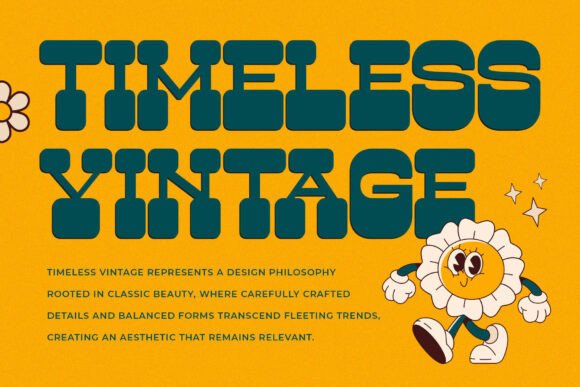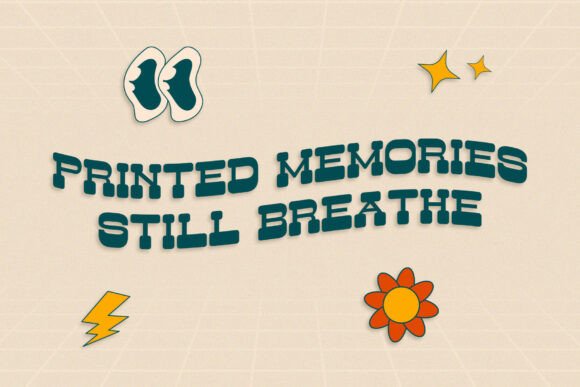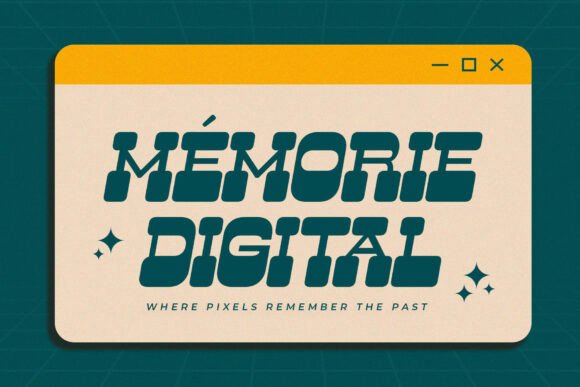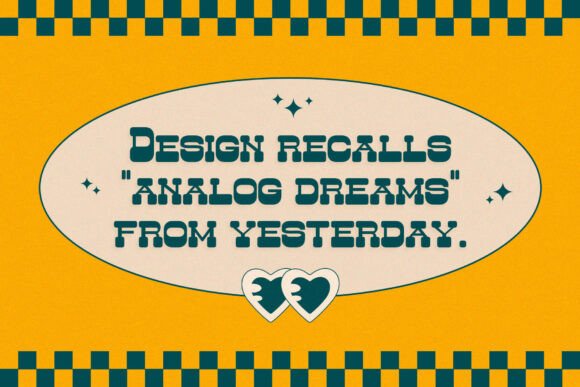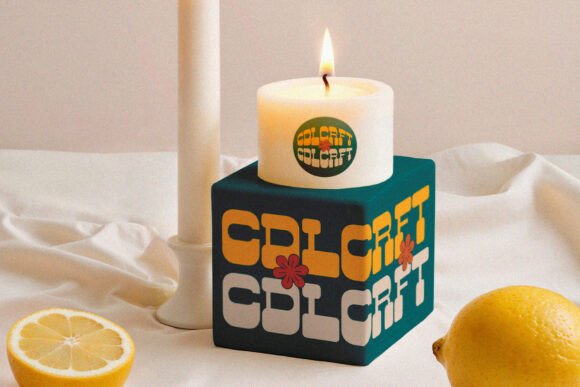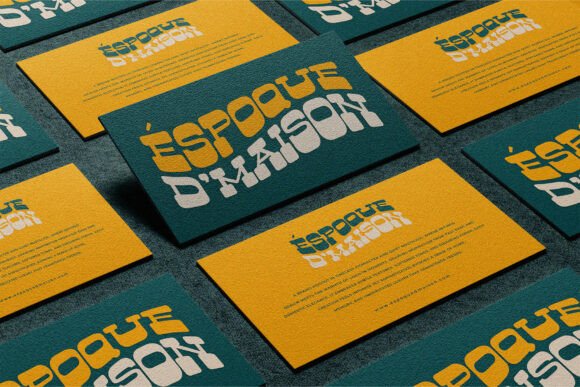
Corshed Font: A Retro Rounded Display Font for Creative Designs
Are you looking for a font that combines bold structure with soft, playful curves? Look no further than Corshed, a retro rounded display font that’s perfect for creative designs. Inspired by vintage typography and classic retro aesthetics, Corshed brings a warm and approachable character to your designs while maintaining a strong visual impact.
The Inspiration Behind Corshed
Corshed is designed to evoke a sense of nostalgia and playfulness. Its chunky letterforms and rounded edges are reminiscent of classic retro typography, while its bold structure ensures that it stands out in any design. Whether you’re creating eye-catching headlines, branding, logos, posters, packaging, social media graphics, or creative visual compositions, Corshed is the perfect choice.
Key Features of Corshed
Corshed is more than just a font – it’s a design tool that offers a range of features to enhance your creative projects. With Corshed, you get:
- Numbers and fractions
- Punctuation and symbols
- Alternates and ligatures
- Multilingual support
Perfect for Retro-Inspired and Modern Playful Designs
Corshed delivers a nostalgic yet fresh feel that’s perfect for both retro-inspired and modern playful designs. Its unique blend of bold structure and soft curves makes it suitable for a wide range of creative projects, from vintage-style posters to modern social media graphics.
Who is Corshed Designed For?
Corshed is designed for creatives who want a bold display font that feels fun, distinctive, and full of personality. Whether you’re a graphic designer, crafty DIY enthusiast, or social media influencer, Corshed is the perfect choice for anyone looking to add a touch of playfulness and nostalgia to their designs.
Tips and Tricks for Getting the Most Out of Corshed
Here are a few tips and tricks for getting the most out of Corshed:
- Experiment with different font sizes and colors to create visual interest
- Use Corshed in combination with other fonts to create a unique typography style
- Take advantage of Corshed’s alternates and ligatures to add personality to your text
- Use Corshed’s multilingual support to create designs for a global audience